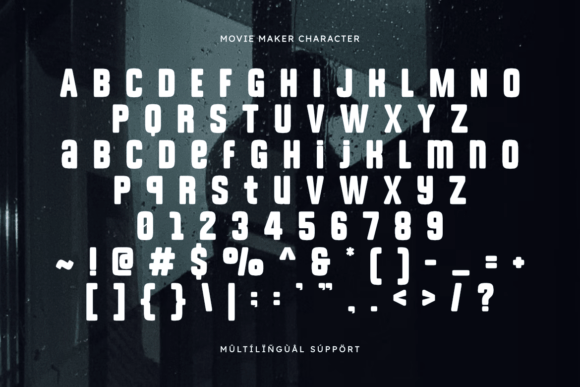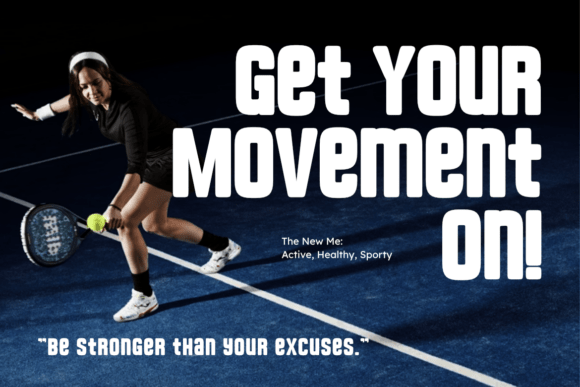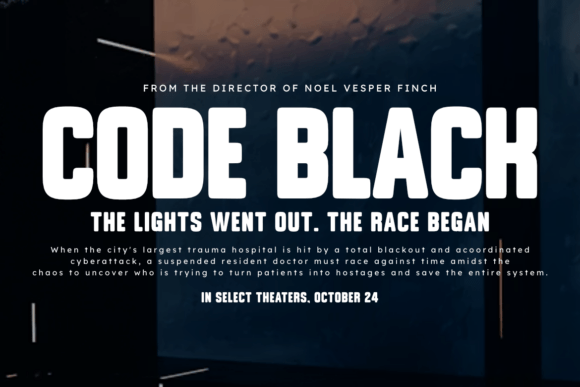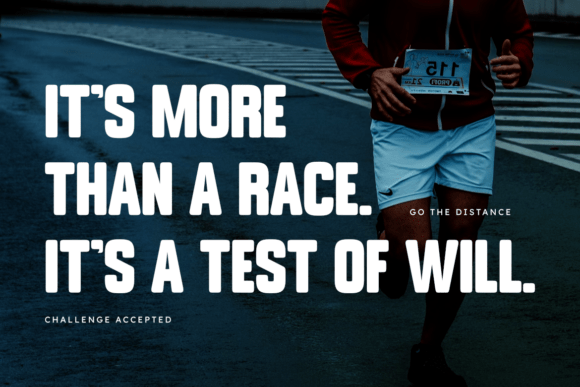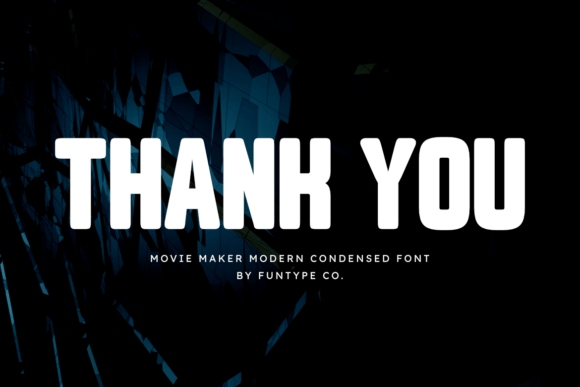
Introduction to Movie Maker Font
Have you ever been scrolling through a movie trailer or browsing a film festival poster and been struck by the bold, eye-catching font that seems to leap off the screen? That’s the magic of the right font, and for designers looking to bring their creative projects to life, the Movie Maker Font is a game-changer.
As a versatile and professional display font, Movie Maker Font is designed to make a statement. With its modern cinematic aesthetic and softly curved edges, it’s the perfect choice for movie posters, film titles, trailers, and impactful headlines. And with over 160 glyphs and multilingual support, it’s a valuable resource for designers working on high-quality, global projects.
Key Features of Movie Maker Font
- Designed to be highly legible, making it perfect for movie titles, credits, and other on-screen text
- Unique characteristics and styling make it a great addition to any design project
Honest Review: Movie Maker Font
I recently stumbled upon the Movie Maker Font, and I must say it’s been a game-changer for my creative projects. This design resource has been a lifesaver when it comes to creating engaging titles and captions for my videos.
- ✨ High-quality font styles that are both modern and stylish
Movie Maker Font
The Movie Maker Font is a high-quality, free design resource perfect for any creative project. This versatile font is ideal for filmmakers, designers, and anyone looking to add a touch of cinematic flair to their work.
Getting the Most Out of It
To get the most out of the Movie Maker Font, use it in conjunction with bold graphics and eye-catching typography. Experiment with different font sizes and colors to create a unique look.
The Movie Maker Font is perfect for:
- Movie posters and trailers
- Movie-themed social media graphics
- Documentary and film festival promotions
- Any creative project requiring a cinematic touch